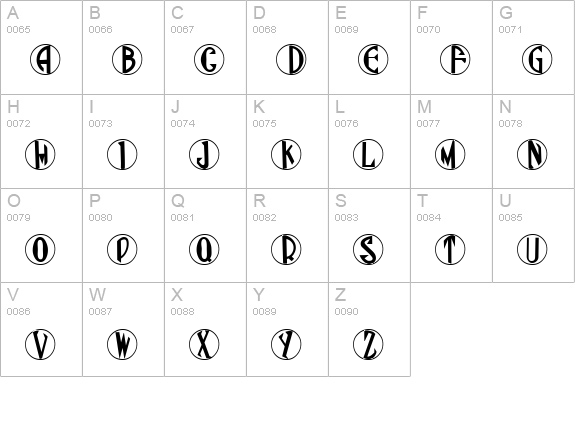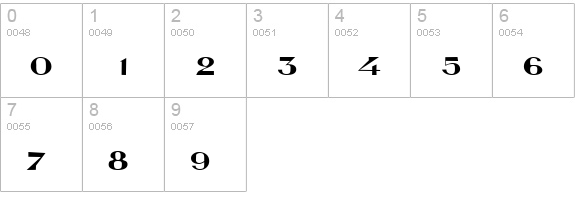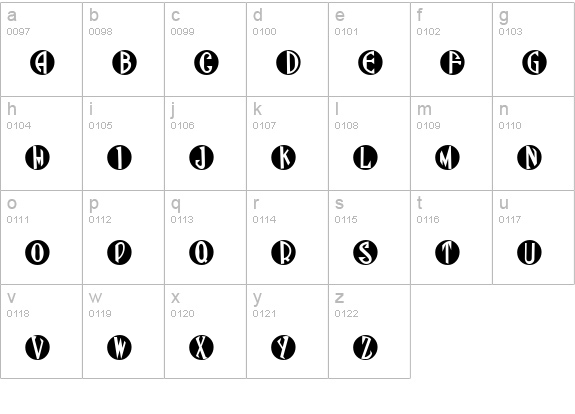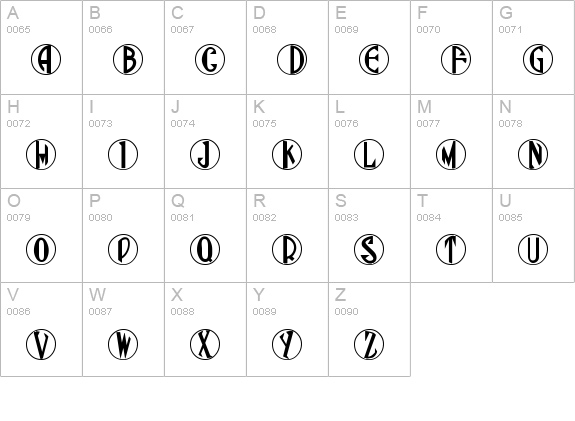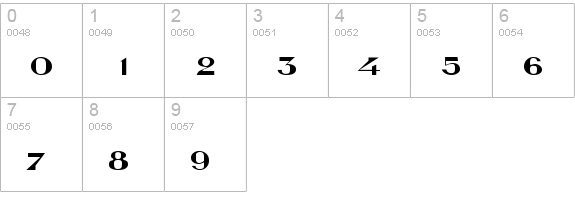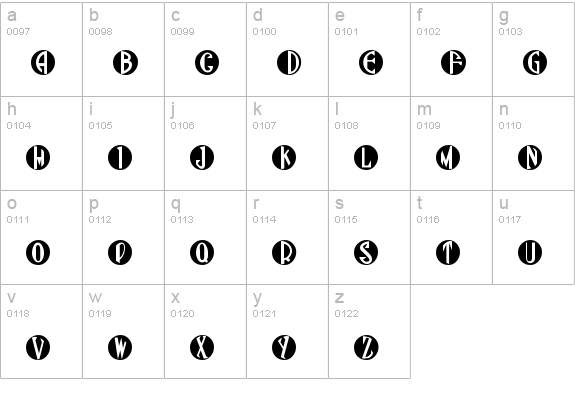
Gatsby Caps font is a stylish and elegant typeface that exudes sophistication and class. With its bold and sleek letterforms, this font is perfect for adding a touch of luxury to your designs. The all-caps design gives it a timeless and classic feel, making it ideal for a wide range of projects. What sets Gatsby Caps font apart is that it is available for free download at FontsMarket.com. This means that you can easily access this exquisite font without any cost, making it a fantastic option for both personal and commercial use. Whether you're working on invitations, branding, posters, or any other design project, Gatsby Caps font will elevate your work to the next level. Download it today and experience the beauty and elegance of this stunning typeface.